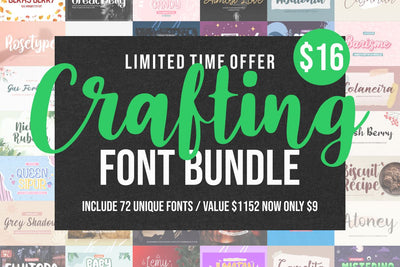
Introducing Crafting Font Bundle.
A fancy modern and elegant handcrafted font Bundle that have unique font collection to impress your audience and make your branding shine.
Make your projects dance with this elegant and wonderful font wherever you use it. Use it for your headings, logos, ads, printed quotes, packaging, and even your website or social media branding.
every letter has unique and beautiful touch, which will make your design come alive!
all fonts also has multilingual support.